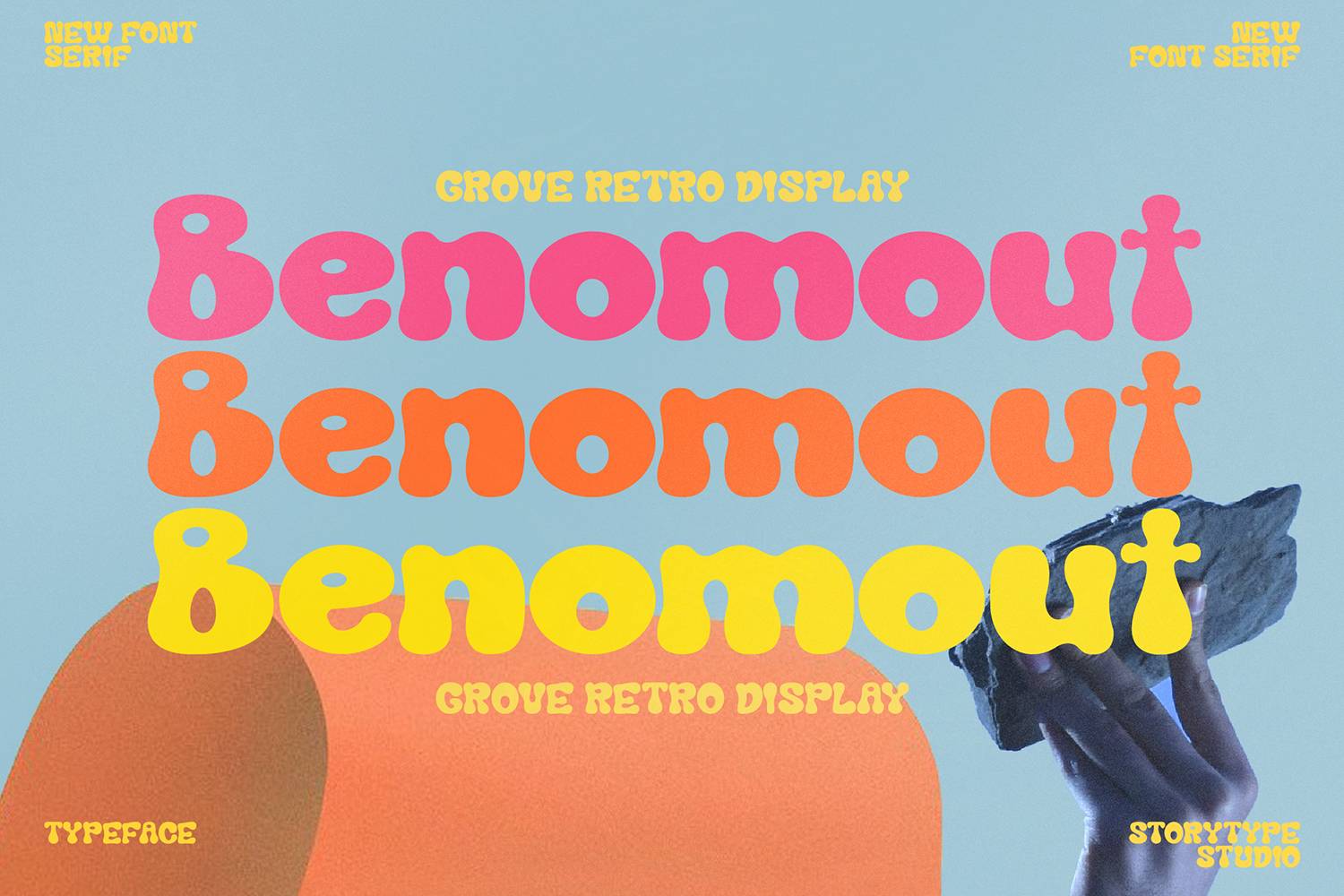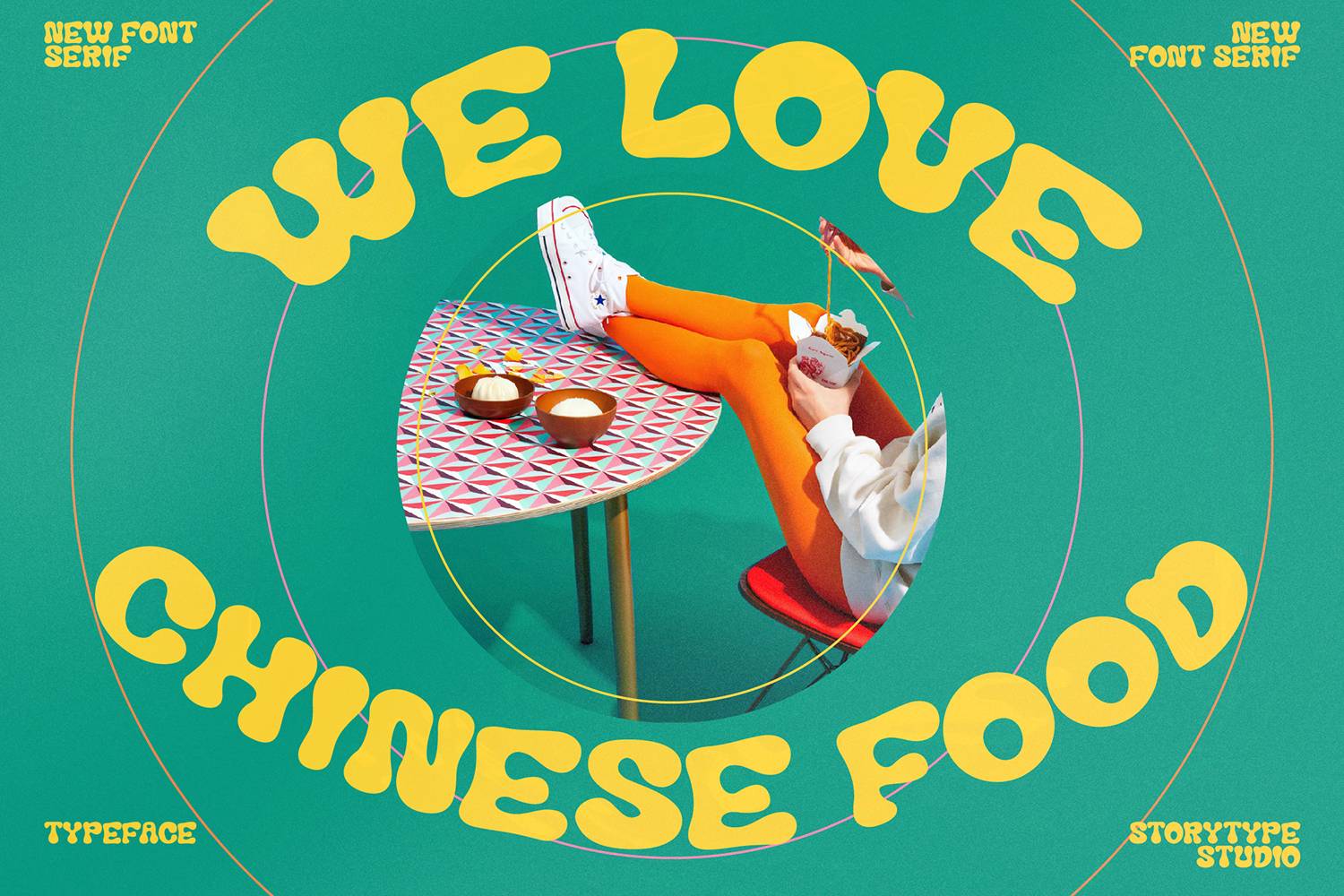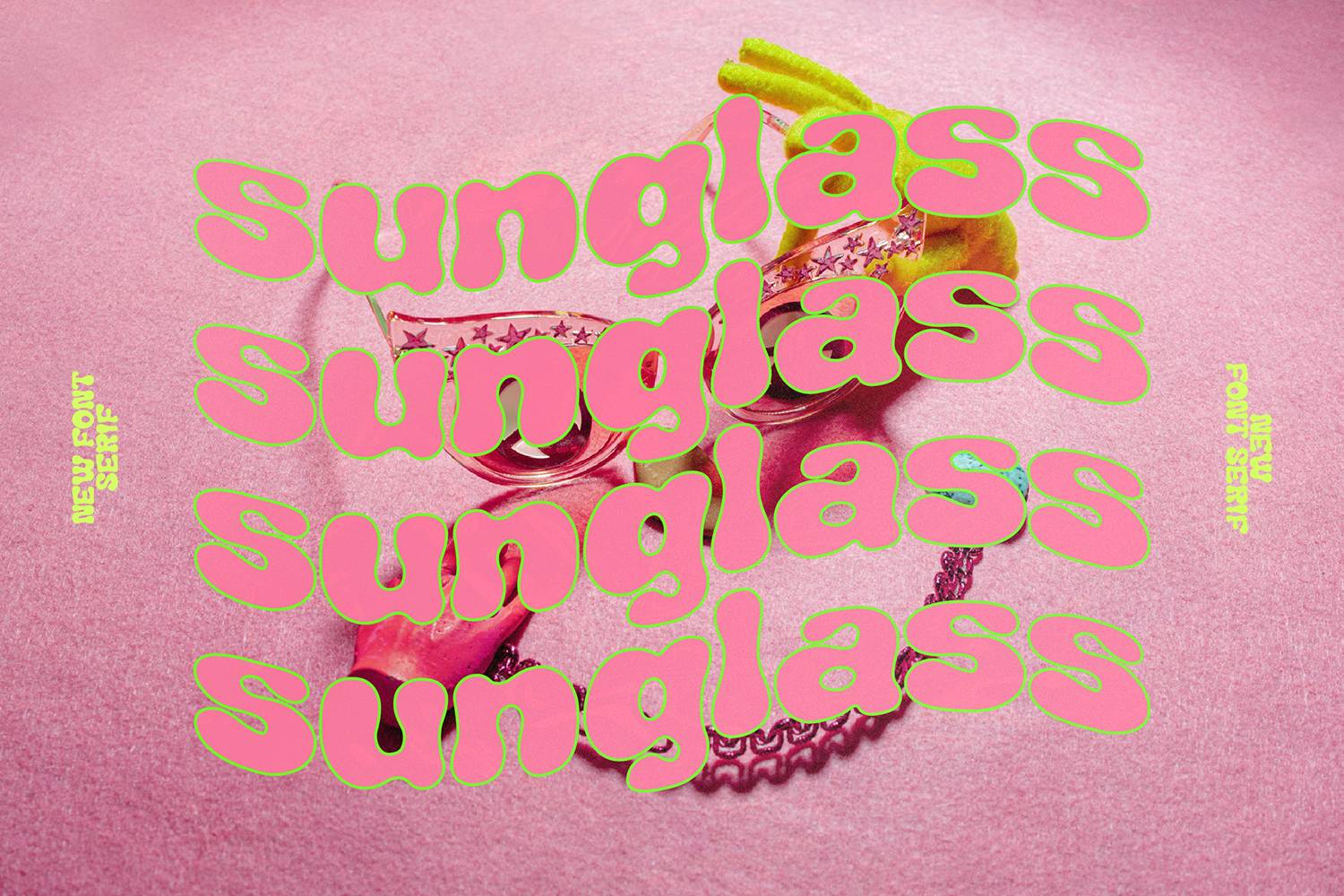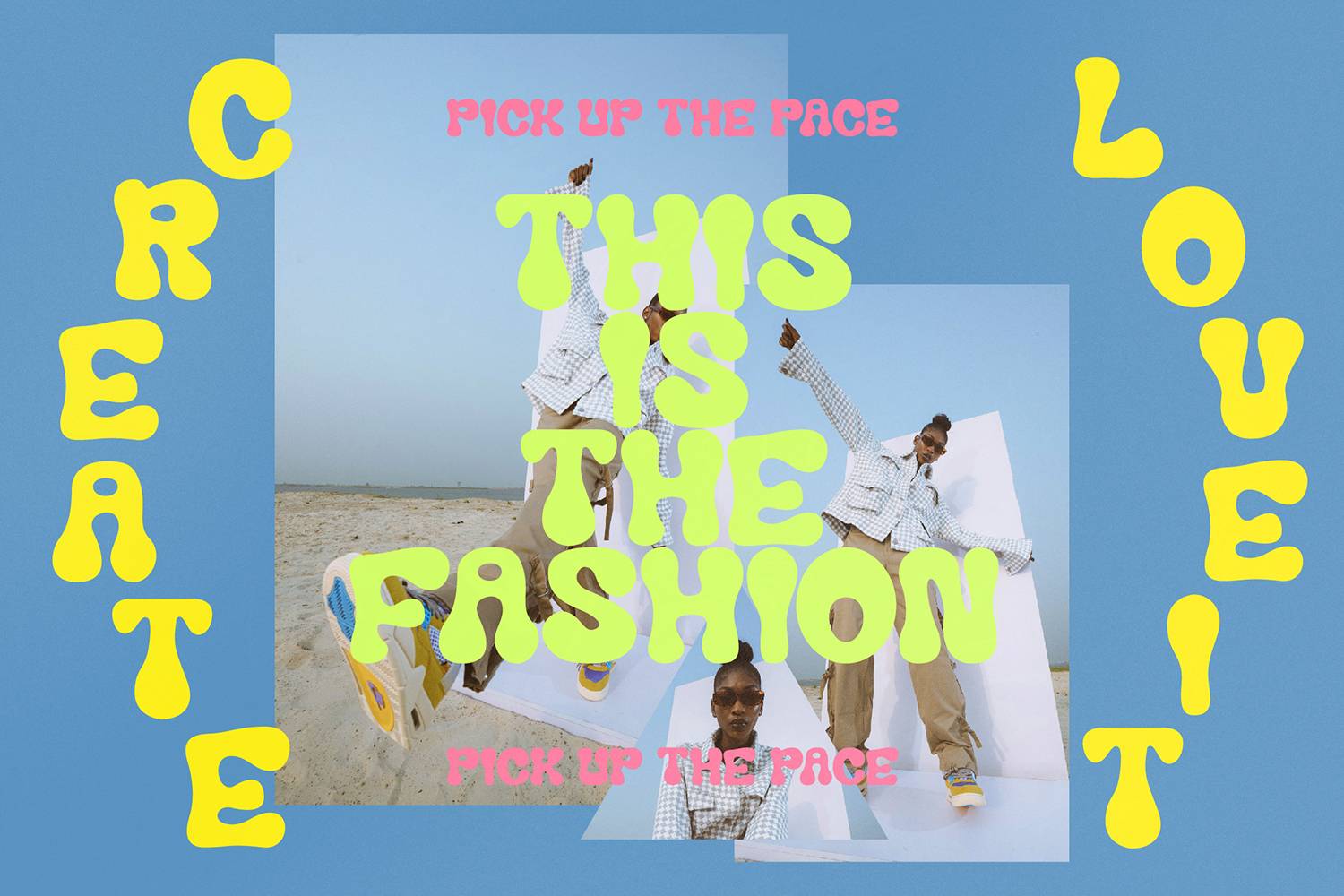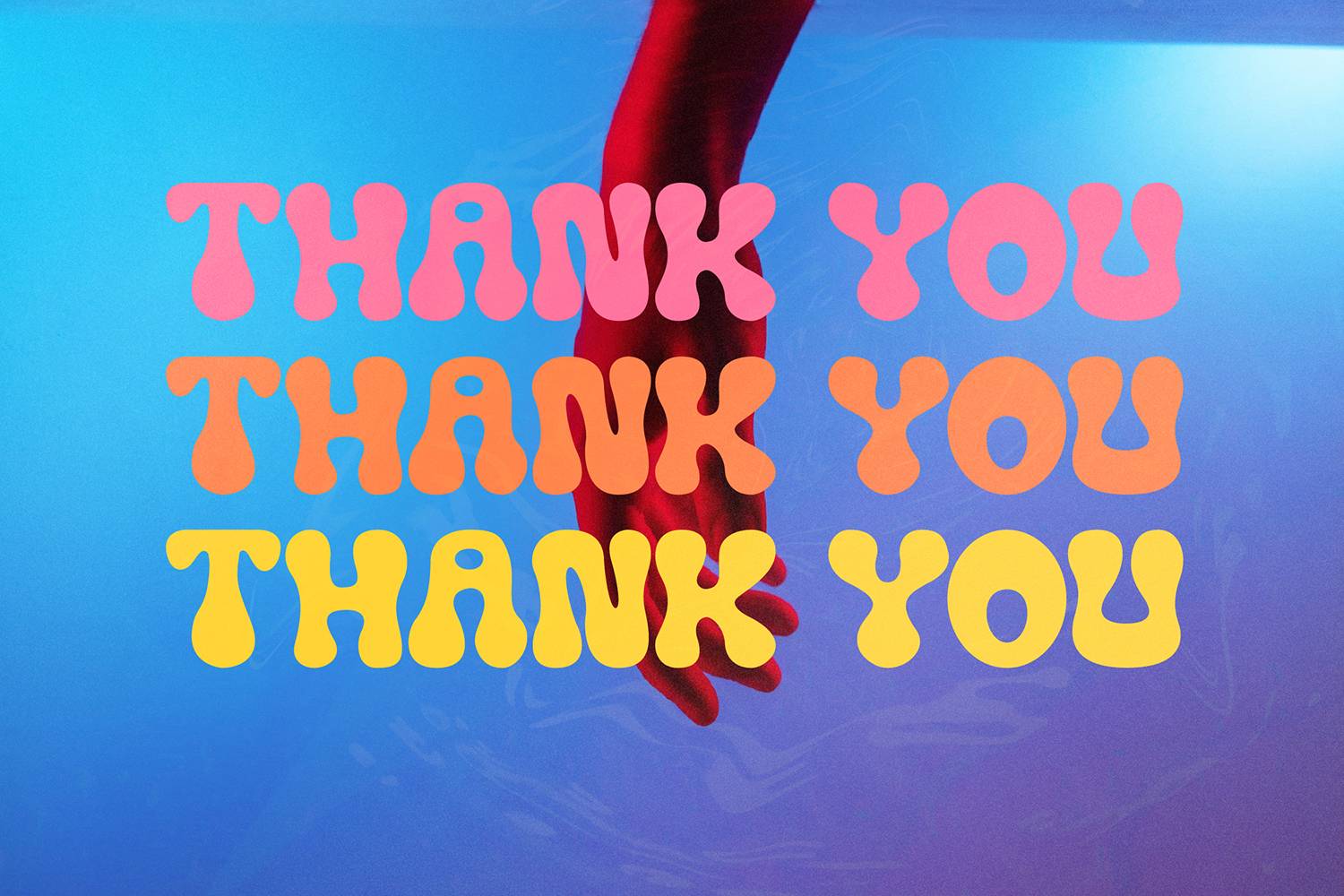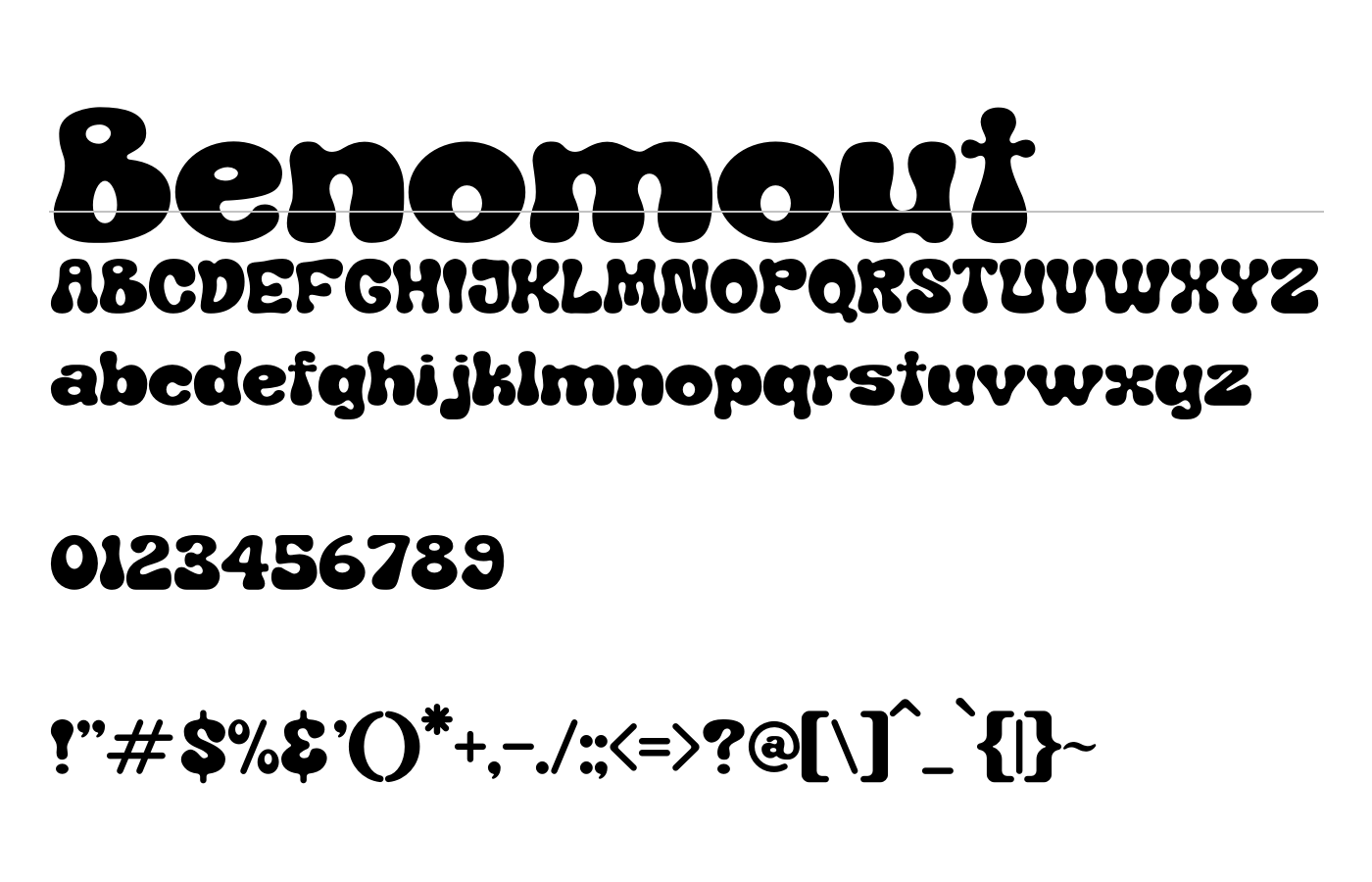
Benomout is a bold, playful display font with rounded, bubbly letterforms that evoke a fun, retro vibe. Its chunky weight and unique, slightly irregular shapes make it perfect for eye-catching headlines, logos, and creative projects that want to convey a friendly, informal personality. This font works especially well for designs seeking a nostalgic yet lively look, such as posters, packaging, and branding in entertainment or youth-focused markets.
Benomout Font
About Benomout Font